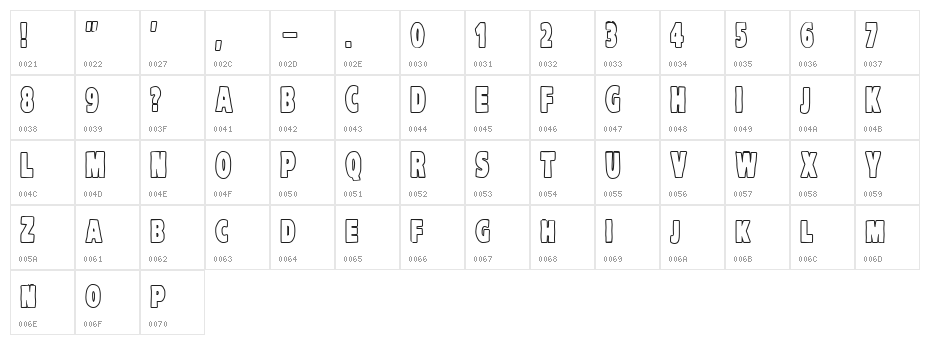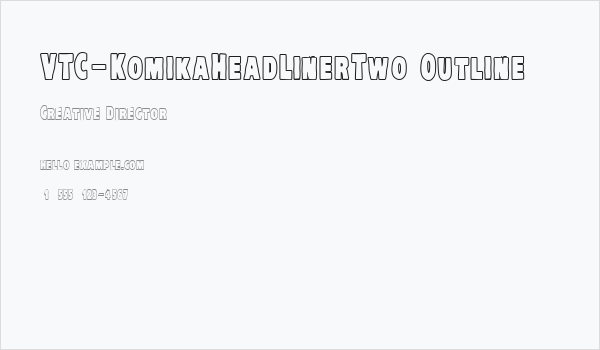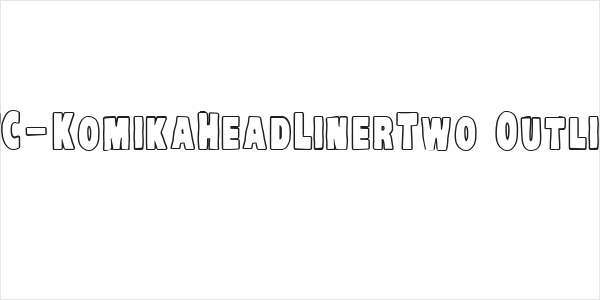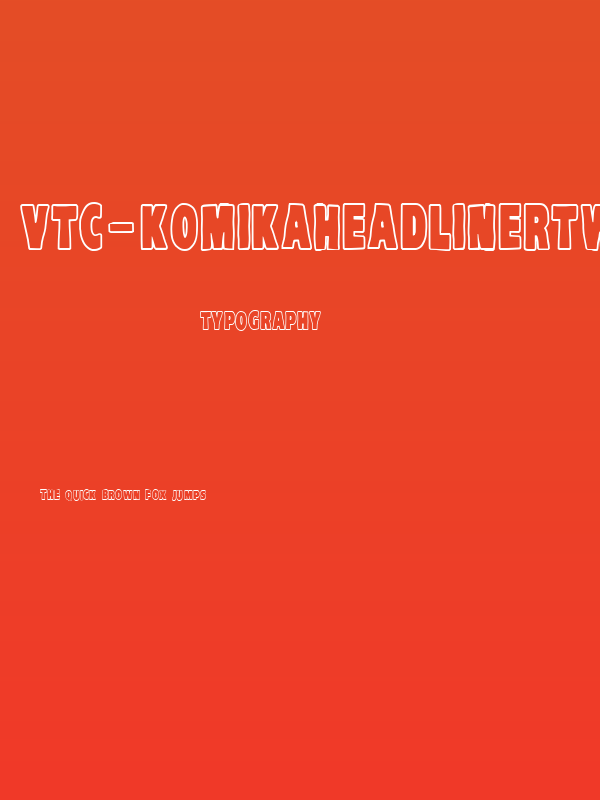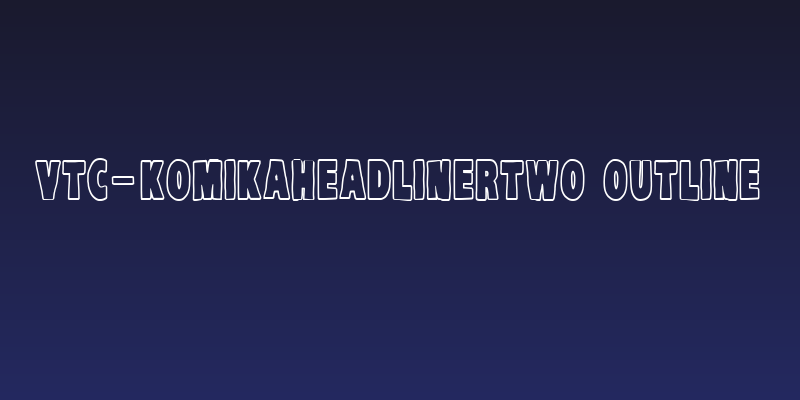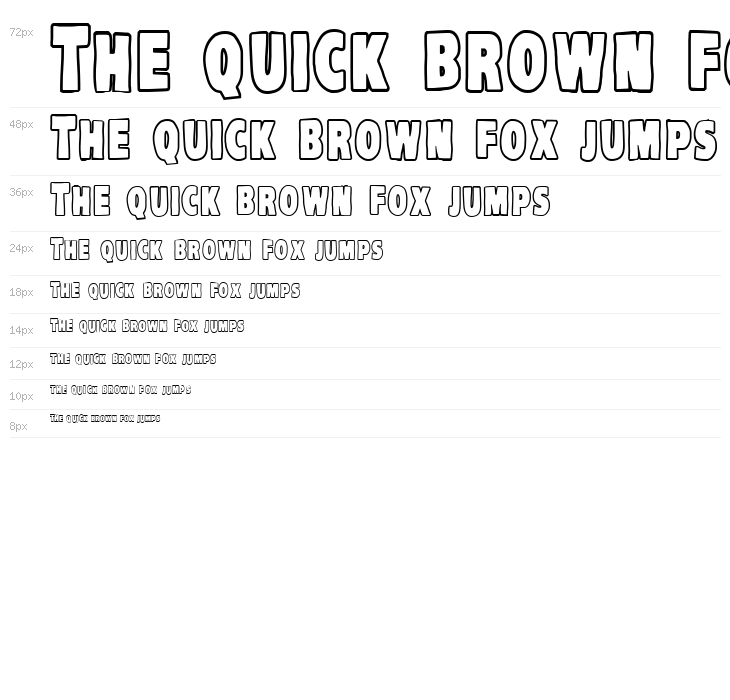
VTC-KomikaHeadLinerTwo Outline Font
VTC-KomikaHeadLinerTwo Outline Description
This font features bold, playful characters with a distinct outline style that gives it a comic book feel. The uppercase and lowercase letters are designed with a uniform thickness, creating a cohesive look across the alphabet. The numbers and special characters maintain the same playful aesthetic, making them suitable for a variety of creative projects. The font's outline design adds a layer of depth and dimension, making it stand out in headlines and titles. Its whimsical style is perfect for projects that require a fun and engaging visual element.
| Overall Style | Playful, Comic |
| Proposed Projects | Ideal for comic books, children's books, playful posters, and creative branding projects. |